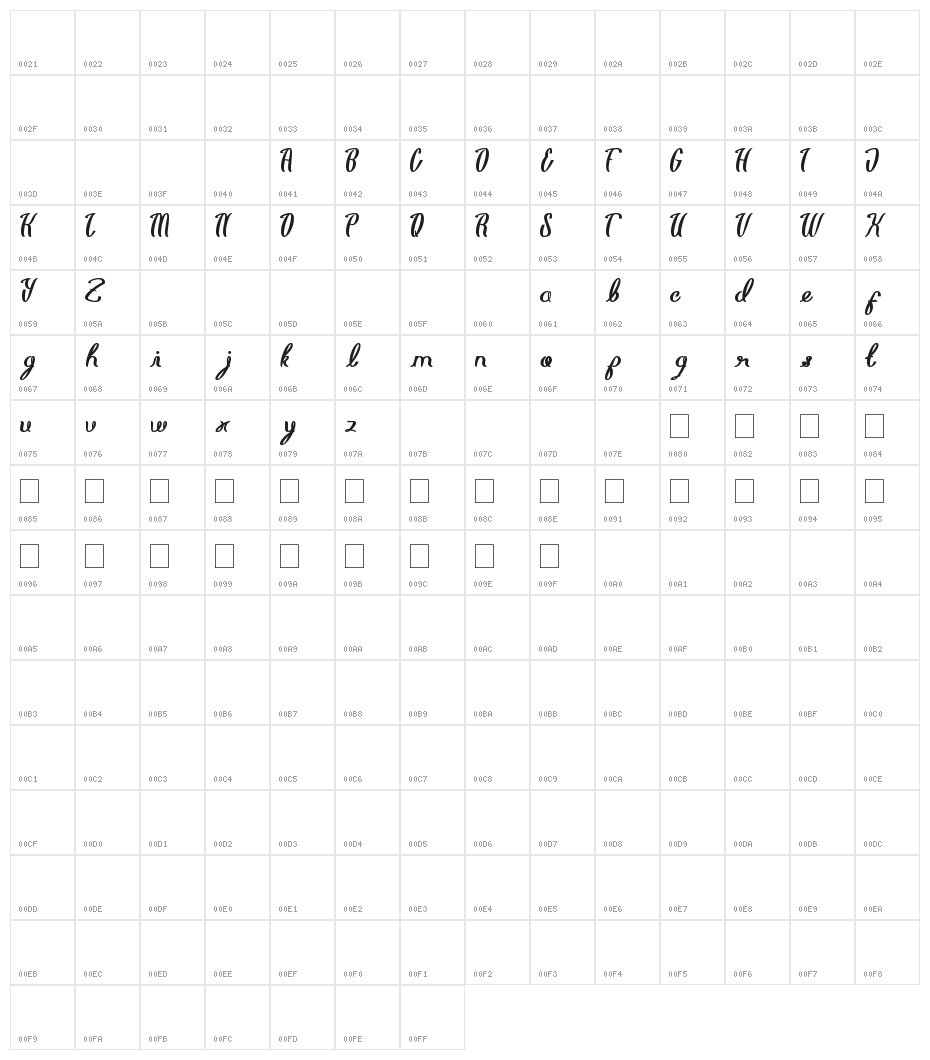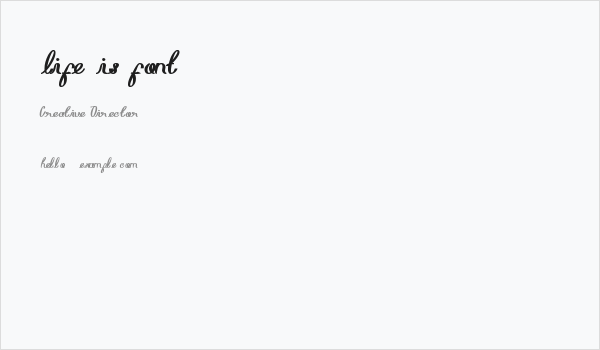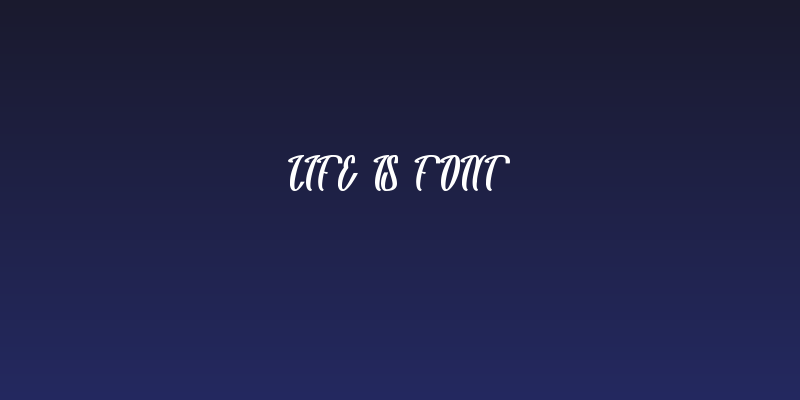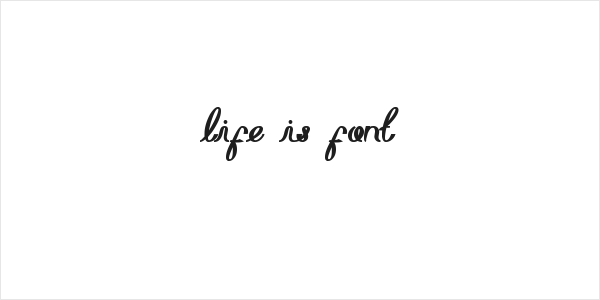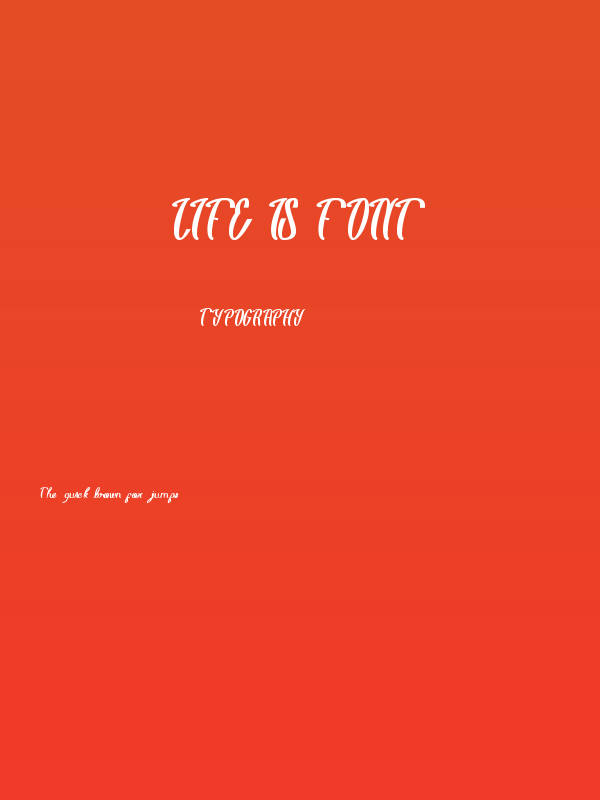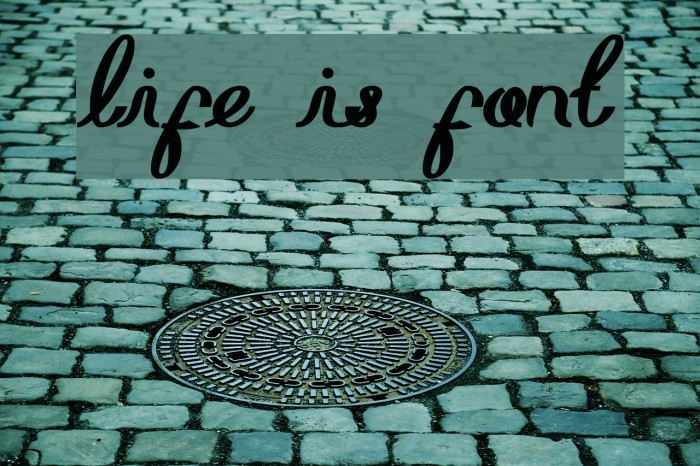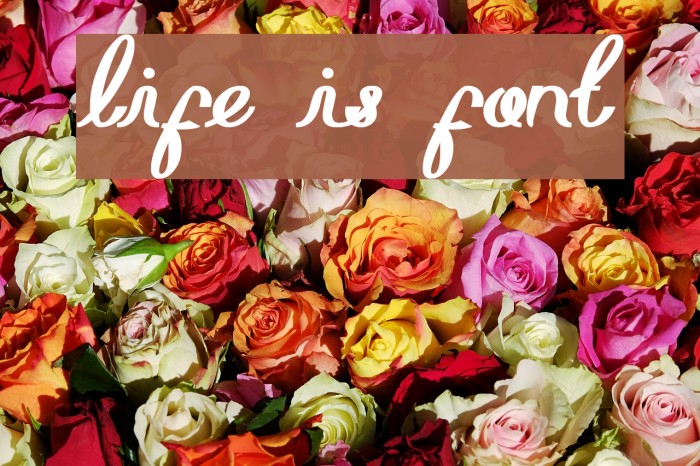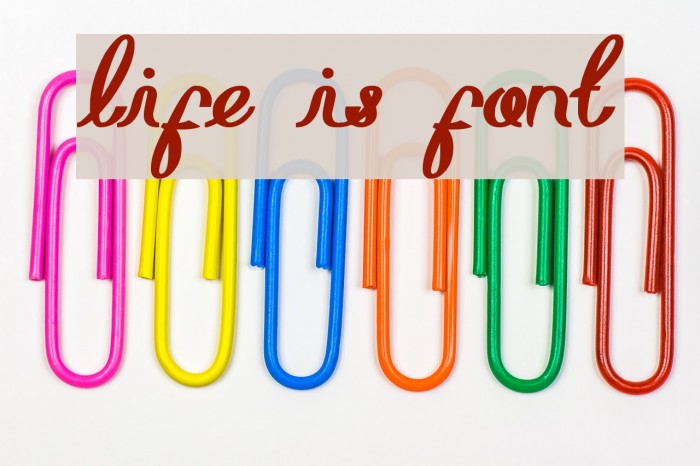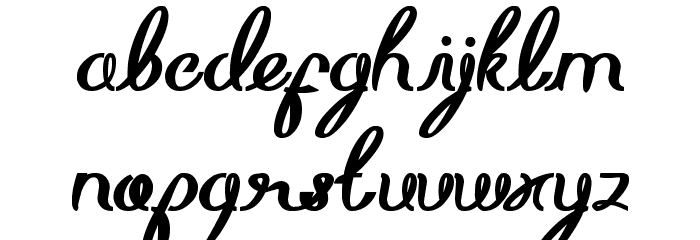
life is font Font
This font features a flowing, cursive style with a modern twist. The uppercase letters are bold and dynamic, with a slight slant that adds movement and elegance. The lowercase letters maintain a consistent flow, connecting smoothly in a script-like manner. The strokes are thick and consistent, providing a strong visual presence. The font's playful yet sophisticated appearance makes it suitable for a variety of creative projects. Its unique character shapes and stylish flair make it stand out, while still maintaining readability.
| Proposed Projects | Ideal for wedding invitations, branding, greeting cards, and creative logos. |